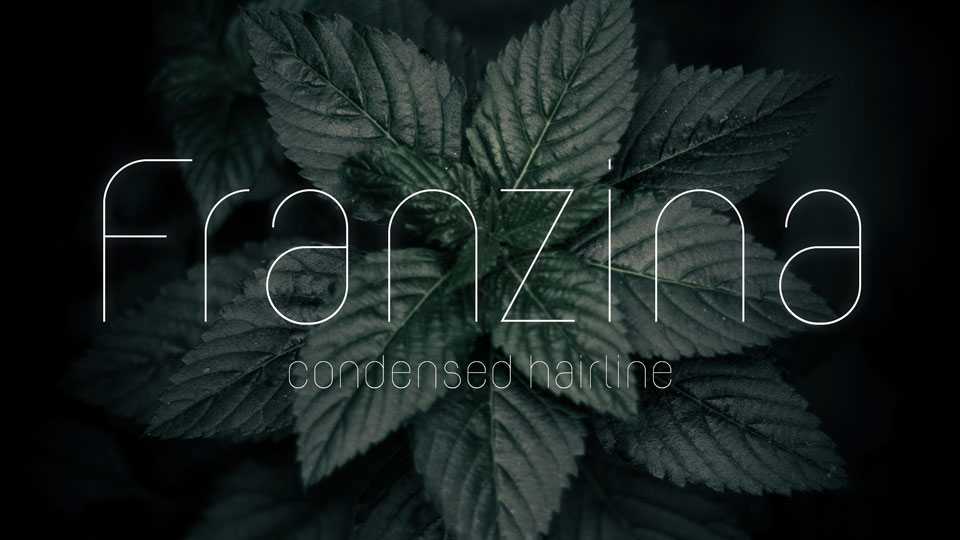
Download Franzina font – a condensed hairline typeface designed “just for fun/love” inspired by the irony of the beauty of thinness. Using the simplicity of typography forms and some delicated curves, this font seeks a subtle romanticism.
Designer: Tiago Silva